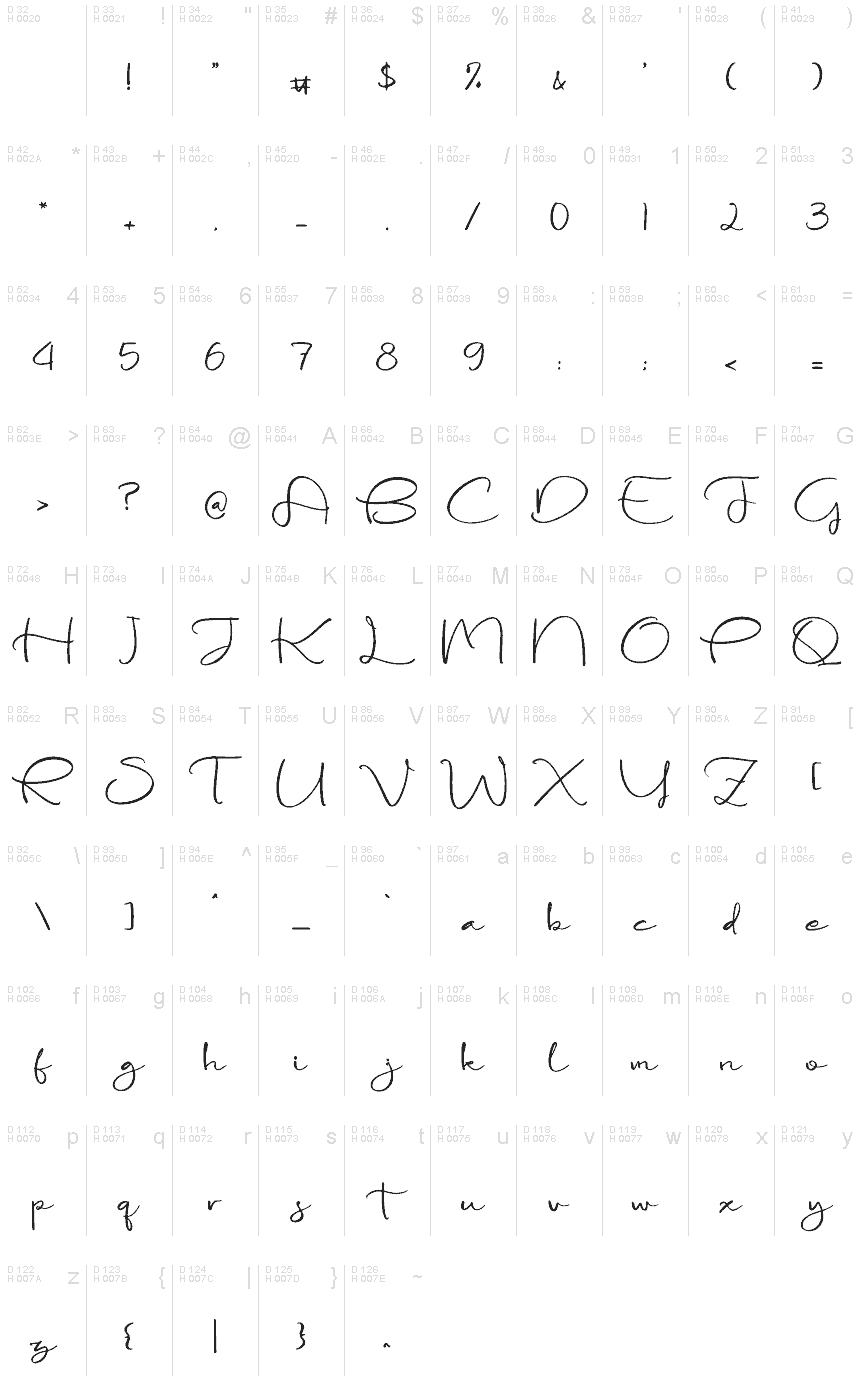
Potteshaw
Potteshaw font by Letterena Studios offers a beautiful blend of casual elegance and artistic flair, capturing attention with its modern appeal and organic flow. This expanded handwritten typeface showcases an expressive character, creating a harmonious balance that feels both stylish and approachable.